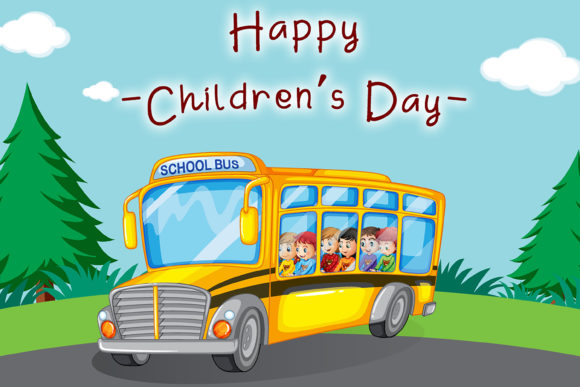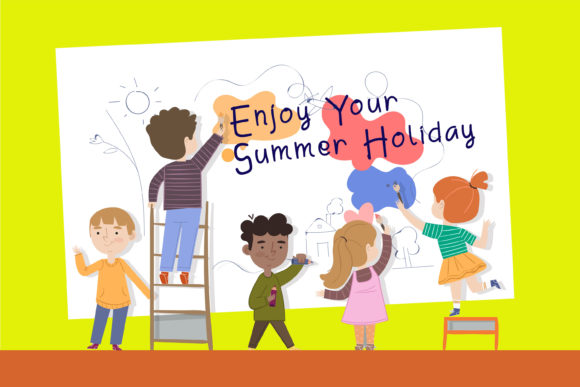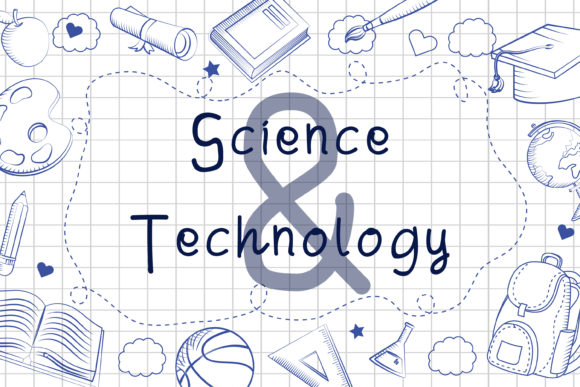
Deeney Font
About Deeney Font
Deeney is a distinct, elegant script that blends traditional influences into a contemporary aesthetic. Its well balanced Latin details contain distinctive contrasts. Use Deeney to achieve an exquisite, yet subtle look and maximum versatility.